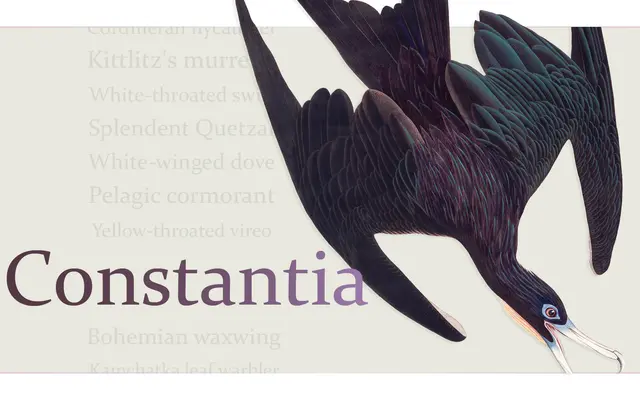
Constantia
Tiro Typeworks · John Hudson
A humanist serif designed by John Hudson for Microsoft, sold here as a standalone retail release with four styles covering Latin, Cyrillic and Greek.
Originally commissioned by Microsoft as part of their ClearType font collection, Constantia was designed by John Hudson of Tiro Typeworks for optimised on-screen legibility at small sizes. The four-style family covers Regular, Italic, Bold and Bold Italic, with a glyph set of over 1,200 characters spanning Latin Extended, Cyrillic and Greek scripts. It sits comfortably in text-heavy editorial and document work where screen rendering quality matters.
Constantia is a humanist serif designed for on-screen legibility at small sizes, with relatively low contrast and open letterforms characteristic of the genre.